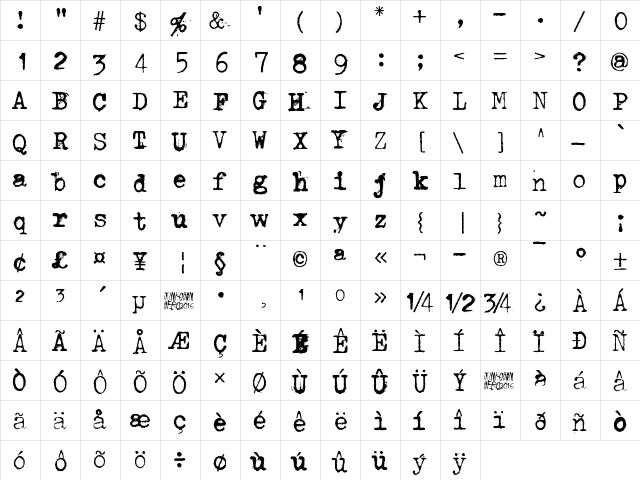
Through the night Regular
Design Context for Through the night Typeface
Through the night embraces imperfection — its rough, textured character adds raw authenticity to designs that want to feel lived-in and unconventional.
A strong fit for alternative music projects, graffiti-adjacent design, and anything that deliberately resists polish.
Pro Tip: Use Through the night at larger sizes where the texture and irregularity of each letterform can be clearly seen — it loses its character at small sizes.